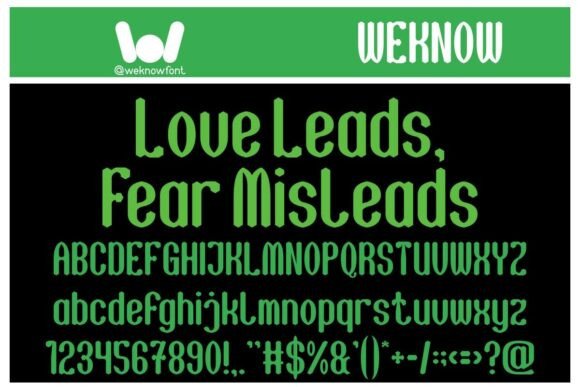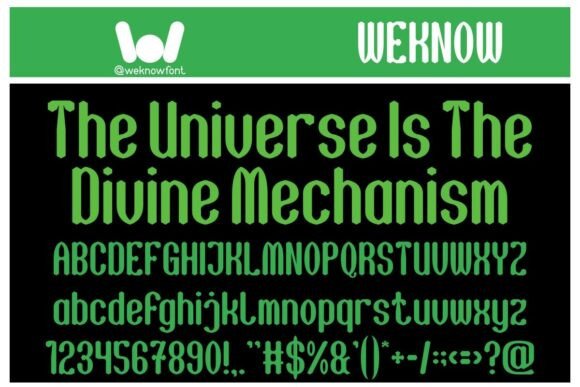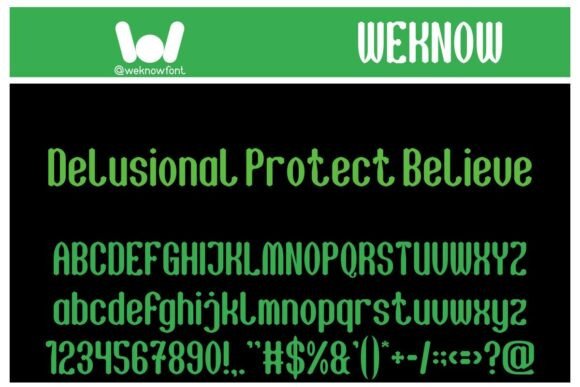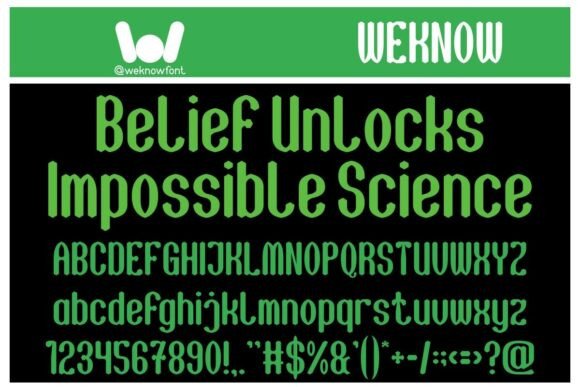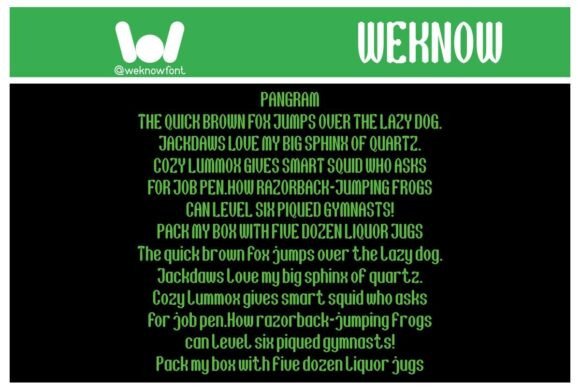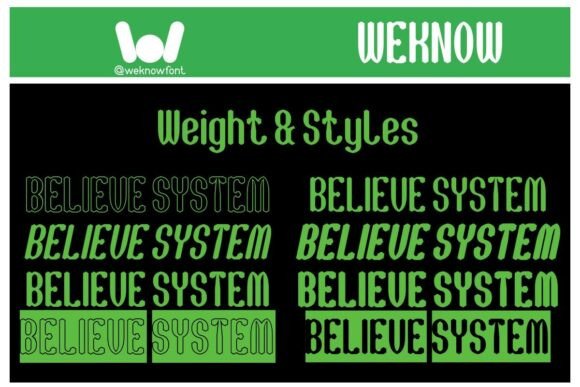
Unleash Your Creativity with the Believe System Font
Have you ever stared at a blank page, struggling to find the perfect font to bring your design to life? It’s a moment we’ve all been in – the blank page staring back, a blank mind staring forward. But what if I told you that there’s a font that can break the ice and get your creative juices flowing?
Enter the Believe System Font, a font that’s as funky as it is functional. This retro-inspired sans serif display font is designed to make a statement and turn heads. With its playful, modern gothic vibe, it’s the perfect choice for logos, headlines, and corporate identities that need a little extra oomph.
As a designer, you know how much a great font can elevate a project. That’s why the Believe System Font is a valuable addition to any designer’s toolkit. With its versatility and style, it’s the perfect solution for a wide range of creative projects.
Believe System Font Key Features
- Font Family: Believe System Font is a sans-serif font family.
- Unique Characteristics: Believe System Font features a clean and modern design with a high x-height, making it highly legible in digital and print applications.
Believe System Font Review
Overall, the Believe System Font is a decent addition to any font collection. Here are some of its strengths: ✨
- Unique aesthetic: The Believe System Font offers a distinct look that’s perfect for designers who want to add some personality to their projects.
- High legibility: The font’s design ensures that text is clear and easy to read, making it suitable for body text and headings.
- Limited language support: The font may not support all languages, which could be a problem for designers working on multilingual projects.
- No bold or italic variants: While the font has a unique look, it’s limited to regular weight, which may not be ideal for designers who need bold or italic text.
- Not suitable for small text: Due to its unique design, the Believe System Font may not be the best choice for small text sizes.
Overall, the Believe System Font is a solid choice for designers who want to add some flair to their projects. While it has some limitations, its unique aesthetic and high legibility make it a valuable addition to any font collection.
Tips for Getting the Most Out of Believe System Font
Believe System Font is a modern sans-serif font that works well for titles, headings, and body text. To get the most out of it, use it for headings and titles to create a clean and minimalist design. Use it in combination with other fonts to add visual interest and variety to your design.
Believe System Font is suitable for a variety of design projects, including:
- Website headers and footers
- Social media graphics and ads